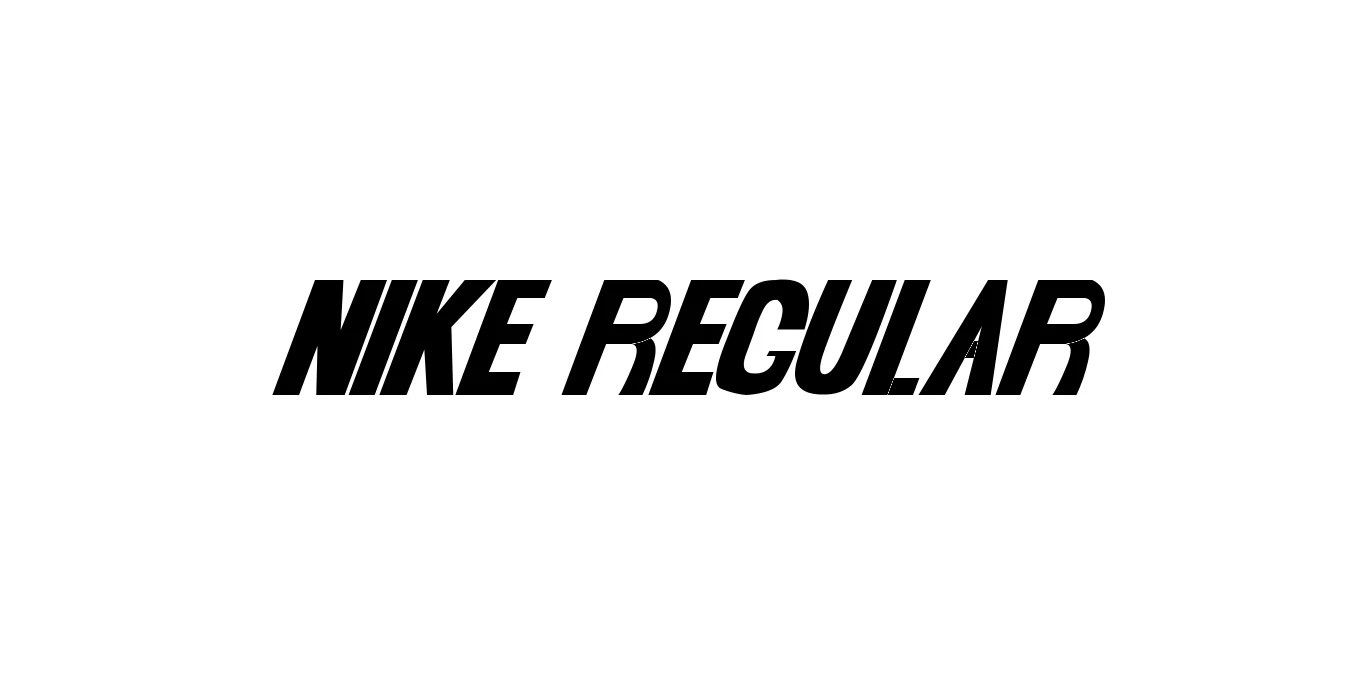
Nike Regular
Designed by Nike Brand Design Team
The Nike Regular font, primarily inspired by the geometric shapes of Futura Extra Bold Condensed, is a cornerstone of global sports culture. Since its prominence in the late 1980s through the 'Just Do It' campaign, this typeface has come to represent peak athletic performance and bold minimalism. Its design emphasizes verticality and strength, utilizing a condensed structure that allows for high-impact messaging even in constrained layouts.
Throughout the years, Nike has transitioned into various custom iterations like Nike TG and specialized headline faces, yet the core aesthetic of the bold, condensed sans-serif remains synonymous with the brand. It is characterized by its sharp terminals, clean lines, and an authoritative presence that works seamlessly across digital media, high-performance apparel, and large-scale environmental graphics.
Nike Regular Best Uses
Ideal for creating powerful visual identities for athletic teams and fitness brands.
Perfect for high-impact titles in magazines, posters, and advertisements.
Frequently used for jersey numbering and bold graphics on sportswear.
Provides a clean, modern look for high-energy digital marketing campaigns.